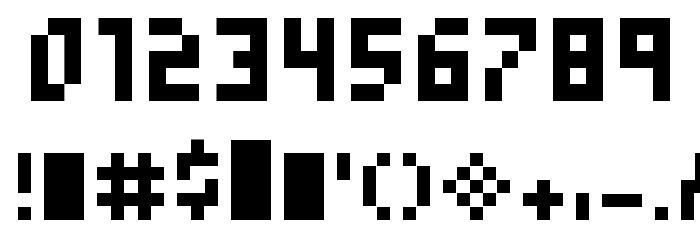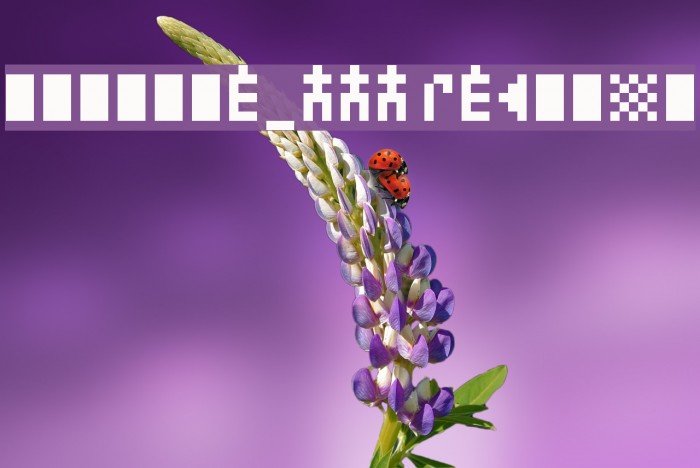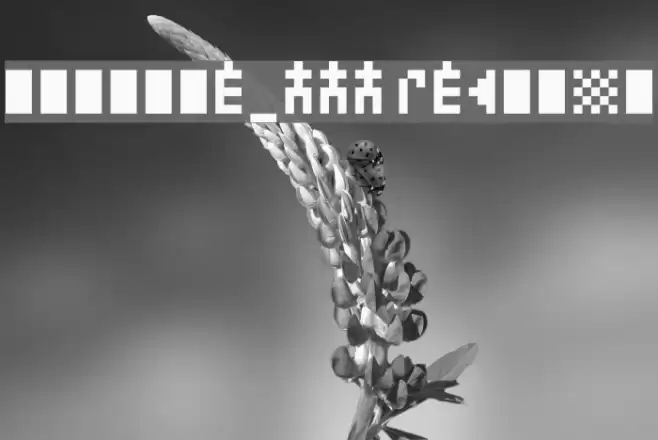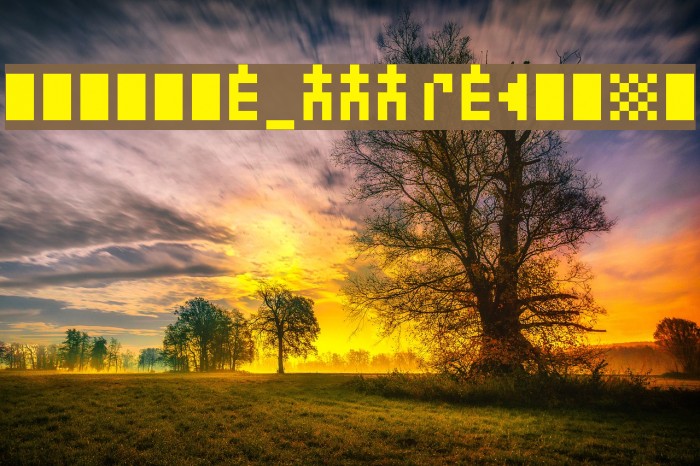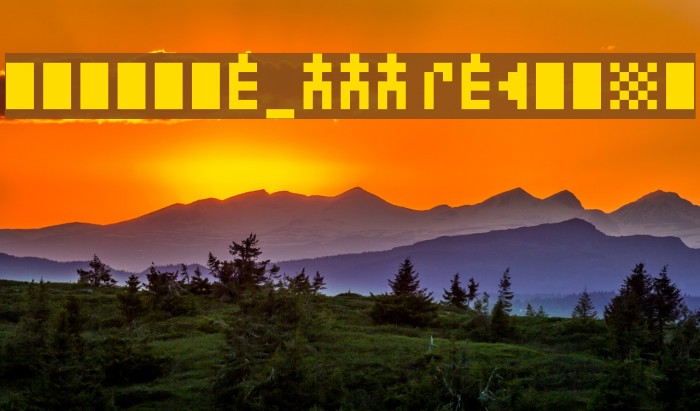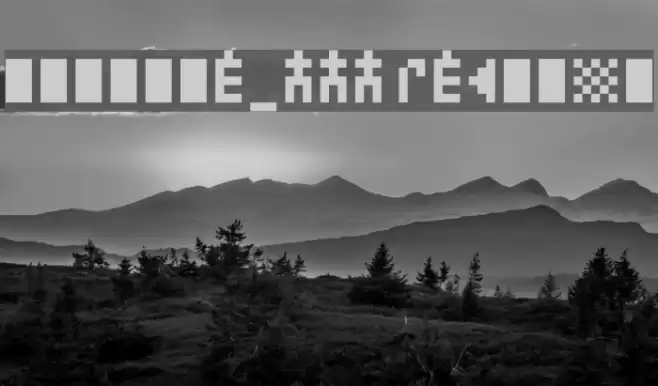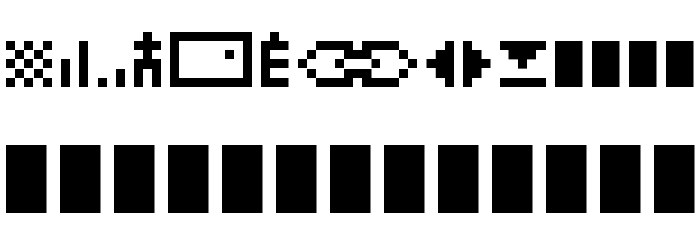
zuptype_ccc Regular Font
zuptype_ccc Regular Description
This font features a bold, pixelated design reminiscent of early digital displays and video games. Each character is constructed using a grid-like pattern, giving it a blocky and geometric appearance. The uniformity in height and width across all characters contributes to a cohesive and structured look. The font's simplicity and clarity make it highly legible, even at smaller sizes. It includes a full set of uppercase letters, numbers, and a variety of special characters, all maintaining the same pixelated style. This design is ideal for projects that aim to evoke a sense of nostalgia or a retro digital aesthetic.
A bold, pixelated font with a retro digital aesthetic from Uncategorized fonts.
• Proposed Projects: Ideal for video game design, retro-themed posters, digital art, and tech-related branding.
• Contrast: Low
• Overall Style: Retro, Digital
• Use Case: Headlines, Logos, Digital displays